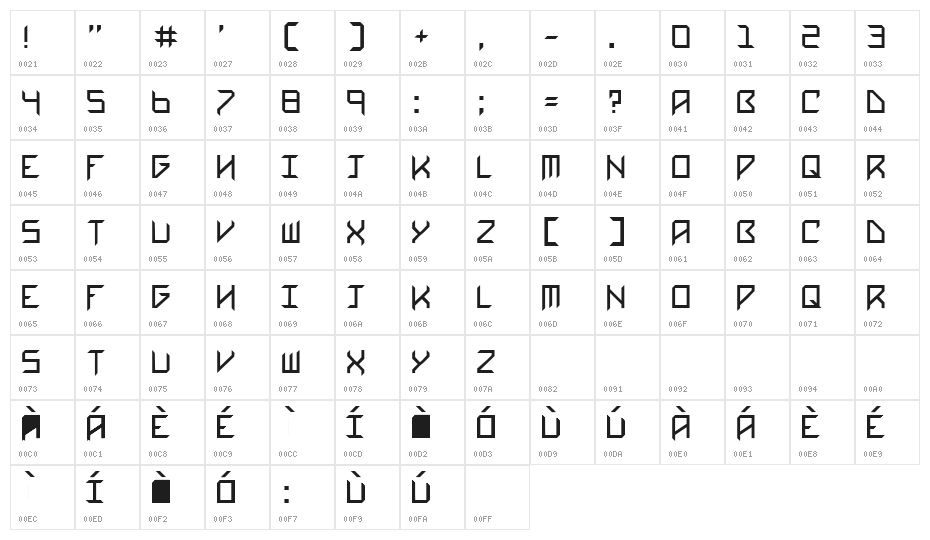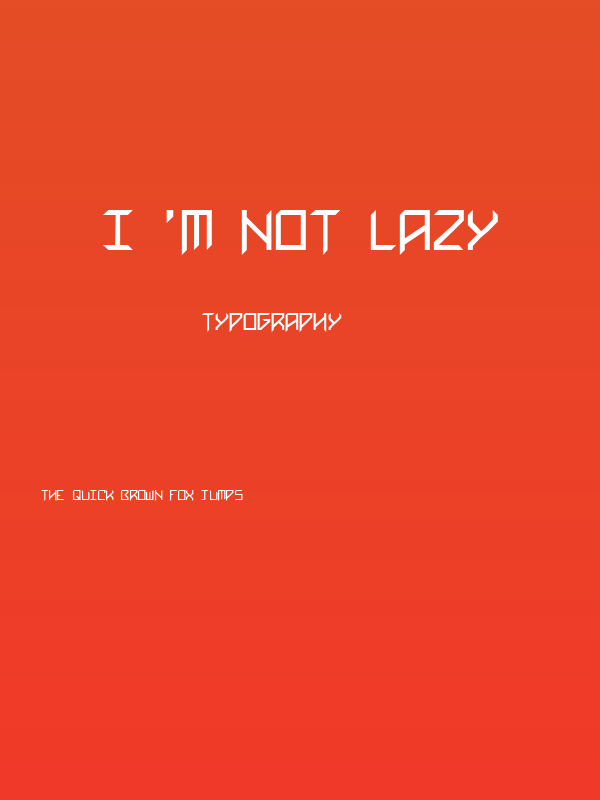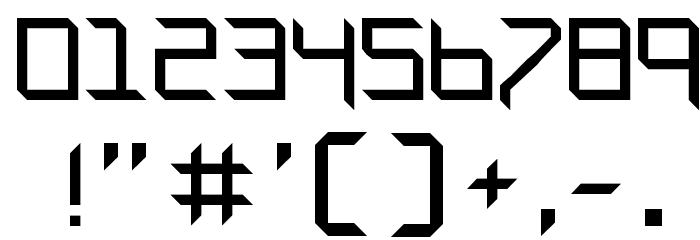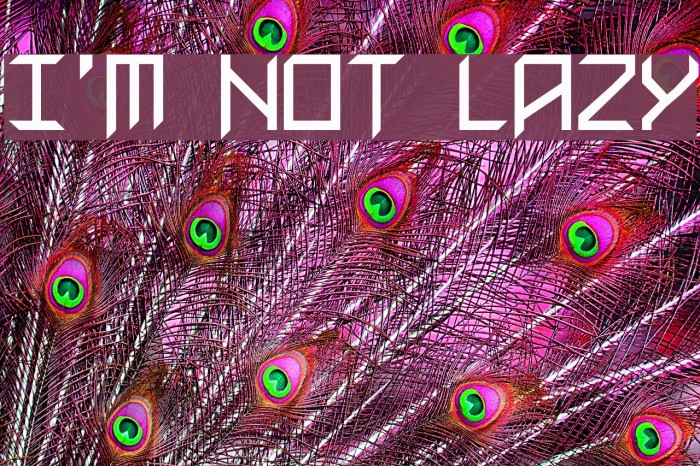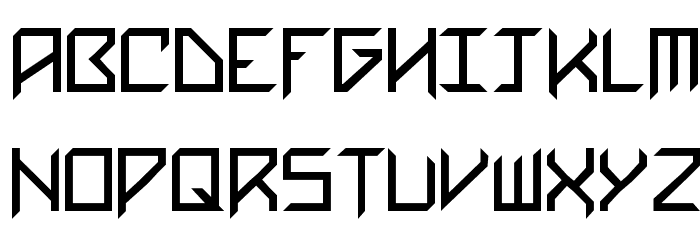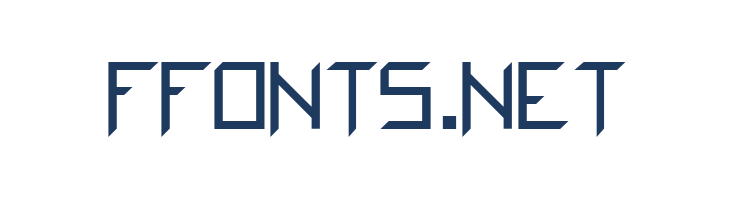
I'm Not Lazy Font
I'm Not Lazy Description
This font features a bold, geometric design with sharp angles and a futuristic aesthetic. The characters are constructed with straight lines and pointed edges, giving them a distinct, edgy appearance. The uppercase and lowercase letters maintain a consistent style, with a uniform height and width that enhances readability. Numbers and special characters are designed to match the angular theme, ensuring a cohesive look across all text elements. The font's unique style makes it suitable for projects that require a modern, tech-inspired feel.
| Proposed Projects | Ideal for tech branding, video game titles, sci-fi posters, and modern logos. |